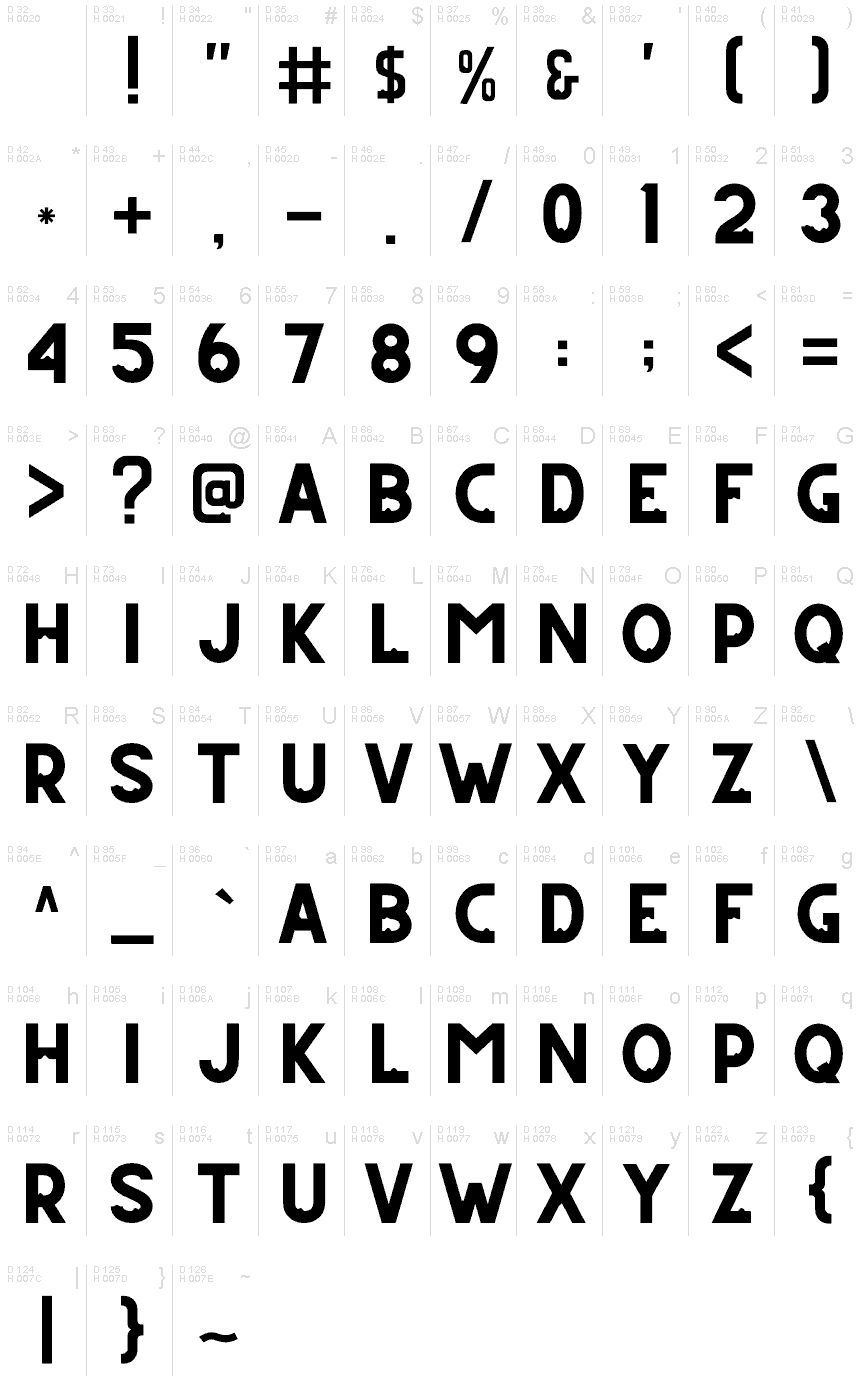
CS Juicy Color
CS Juicy Color font by Craft Supply Co. is a modern typeface with rounded geometric letters. Curves and long strokes meet clean cuts in an overall coherent aesthetic of this display collection that combines capitals, symbols, and numerals.